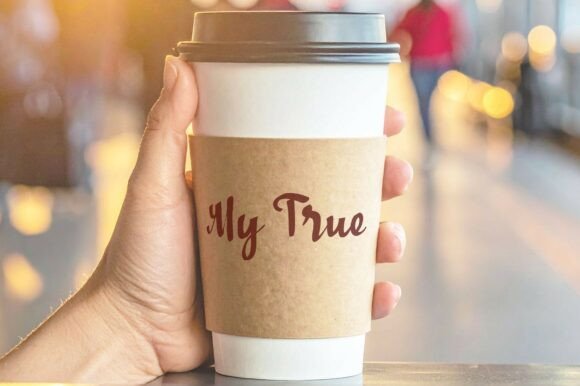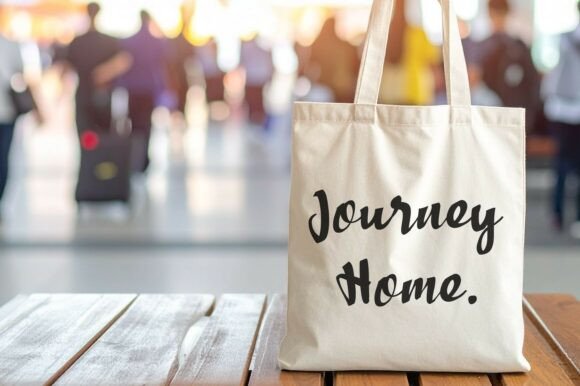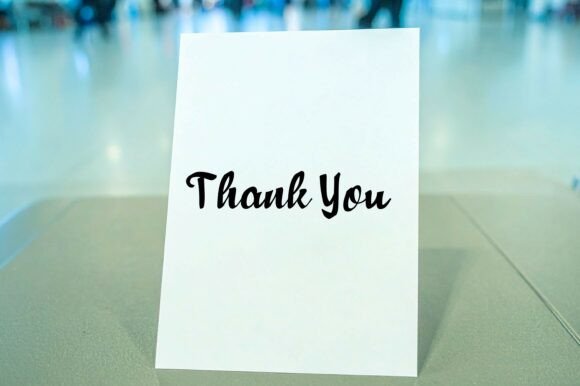
Where Words Meet Warmth: The Story of Arus Balik Font
Have you ever sat with a cup of coffee, pen in hand, and scribbled down a heartfelt message to a loved one? The moment your pen glides across the paper, the words begin to flow, and the emotions pour out. This is the essence of the Arus Balik Font – a warm and friendly script font that captures the essence of handwritten charm.
Designed to convey sincerity and a personal touch, Arus Balik Font is the perfect addition to any project that requires a touch of warmth and hospitality. With its smooth curves and approachable style, this font is ideal for designers looking to create an inviting atmosphere in their work. From cafe branding to personal blogs, Arus Balik Font is the perfect choice for any project that aims to convey a friendly, approachable, and heartfelt aesthetic.
- Unique Characteristic: Features a distinctive, hand-drawn aesthetic with intricate details and flourishes, making it perfect for creative and artistic projects.
Designer Review: Arus Balik Font
✨ I must say, I was quite impressed with the overall design and aesthetic of the Arus Balik Font. The unique blend of modern and traditional elements creates a captivating visual experience that’s sure to draw attention.
The font’s flexibility and adaptability to various digital platforms are definite strengths. It’s ideal for a wide range of applications, from branding and marketing materials to editorial content and digital interfaces.
Key Strengths:
- ✨ Unique and modern design aesthetic
- ✨ Highly adaptable to various digital platforms
- ✨ Wide range of applications
⚠️ However, I did notice a few limitations that might affect its overall usability. For instance, the font’s legibility could be improved in certain font sizes, and the character set is somewhat limited compared to other fonts.
- ⚠️ Limited character set
- ⚠️ Legibility issues in certain font sizes
Overall, the Arus Balik Font is a solid choice for designers looking for a unique and adaptable font. While it has its limitations, its strengths and versatility make it a great addition to any design project.
Tips for Getting the Most Out of Arus Balik Font
Use Arus Balik Font to create visually appealing and unique designs. Experiment with different font sizes, colors, and styles to create contrast and emphasis.
Arus Balik Font is commonly used for:
- Graphic design and branding
- Social media posts and marketing materials
- Typography-based designs and art